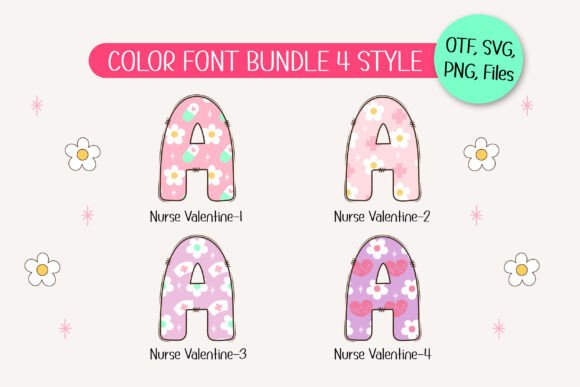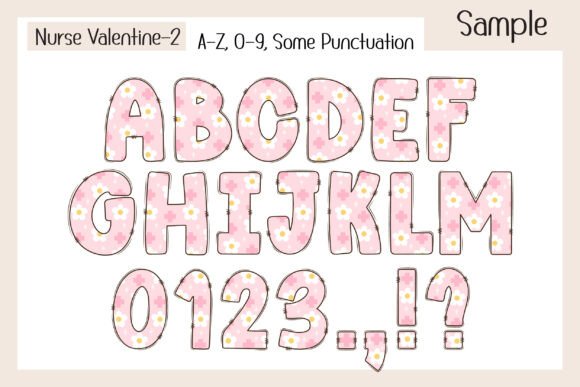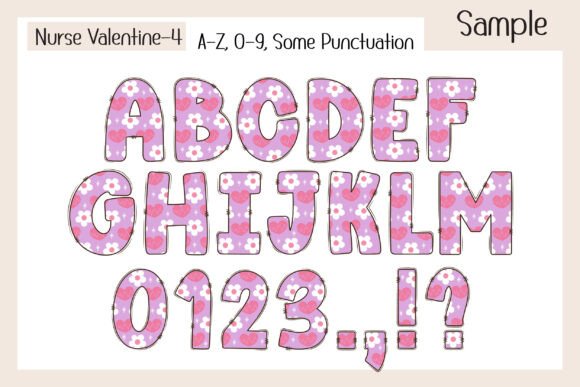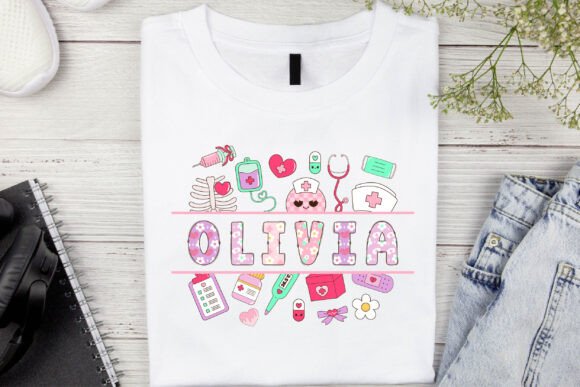
Nurse Valentine Font
Celebrate love and compassion with “Nurse Valentine” a heartwarming font that blends the colors of Valentine’s Day with nursing symbolism and a delicate floral pattern. Featuring a sweet 4-color design, this font is perfect for adding a touch of care and charm to your creative projects. Whether you’re designing nurse-themed T-shirts, Valentine’s Day cards, wedding invitations, romantic quotes, Instagram posts, love letters, gift tags, or personalized stationery, “Nurse Valentine” delivers warmth and elegance. Plus, it comes with 20 bonus matching Valentine Nurse clip art pieces, making it the perfect choice for honoring the love and dedication of nurses everywhere.